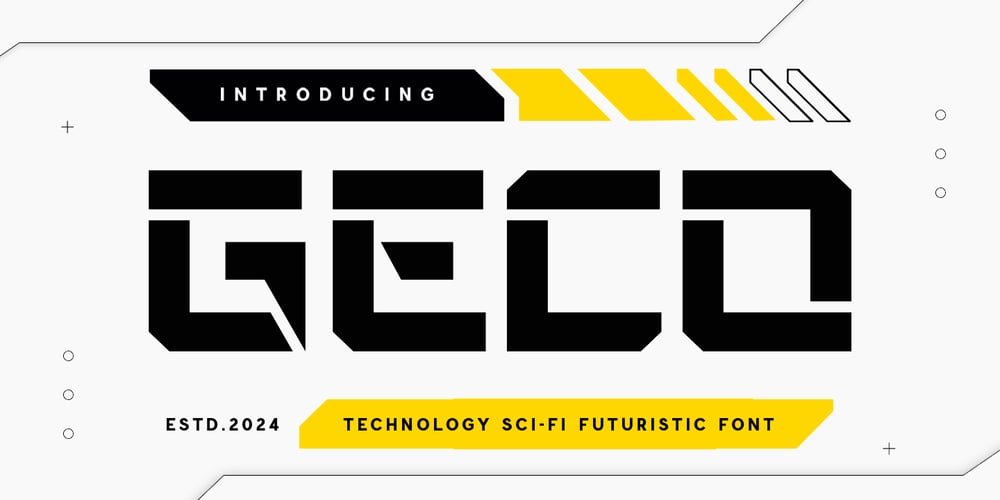
Geco Font Family was designed by Zamroni Hamzah and published by Sensatype Studio. Geco contains 2 styles and family package options. Introducing GECO, a modern sci-fi font crafted for futuristic and innovative designs. Perfect for projects that need a touch of the future, GECO combines sleek lines with a cutting-edge aesthetic to bring your ideas to life.The Story Behind GECO:GECO was inspired by the limitless possibilities of the future. Imagine a world where technology and design merge seamlessly, creating environments that are both functional and visually stunning. This font captures that vision, offering a sleek and modern look that is perfect for any project aiming to make a bold statement. GECO is ideal for designers who want to push the boundaries and explore new frontiers in their work.GECO Font Features: Modern Design: Contemporary and stylish, perfect for futuristic projects. Sci-fi Aesthetic: Sleek lines and sharp angles that evoke a sense of innovation and advanced technology. Versatile Usage: Ideal for logos, branding, headlines, posters, and tech-related designs. Multiple Formats: Available in 4 formats for all your design needs. High Legibility: Clear and sharp, ensuring your message is communicated effectively. Futuristic Appeal: Combines modern style with a vision of the future. Inspirational Previews: Includes sample designs to spark your creativity. Perfect For: Tech Branding: Create sleek and memorable logos for tech companies and startups. Futuristic Designs: Design eye-catching posters, flyers, and promotional materials with a sci-fi twist. Professional Materials: Develop modern and stylish business cards, letterheads, and office stationery. Marketing and Advertising: Enhance brochures, advertisements, and digital campaigns with a futuristic touch. With GECO, your designs will stand out as innovative and forward-thinking. Whether you’re working on tech branding, futuristic designs, or professional materials, GECO provides the perfect blend of modern aesthetics and sci-fi appeal. Elevate your design projects with GECO and bring a touch of the future to your work.